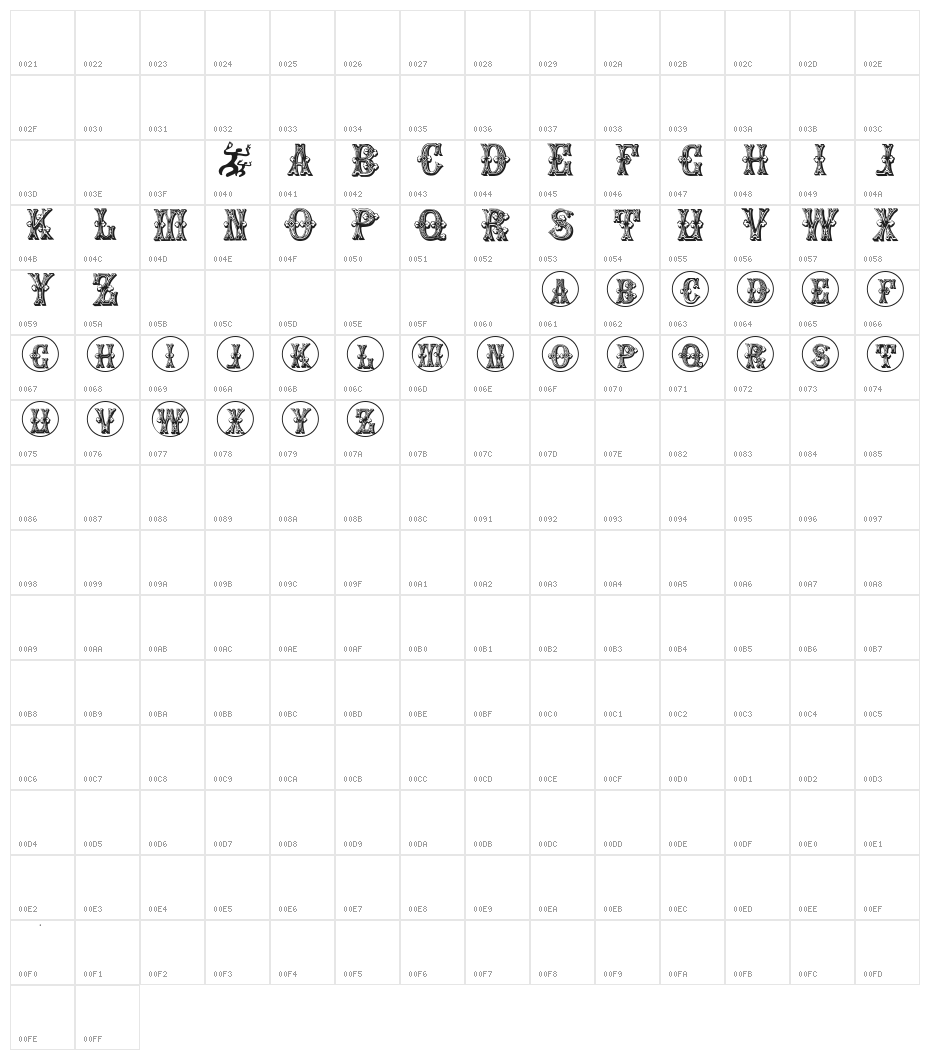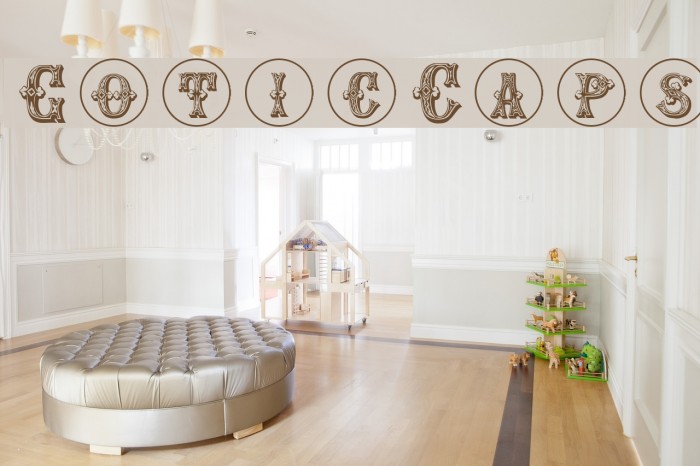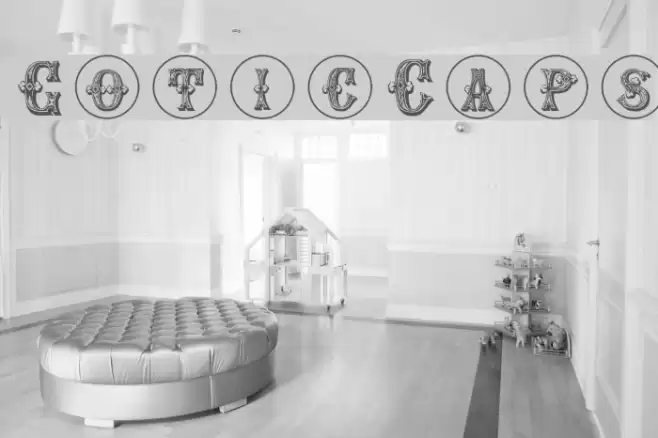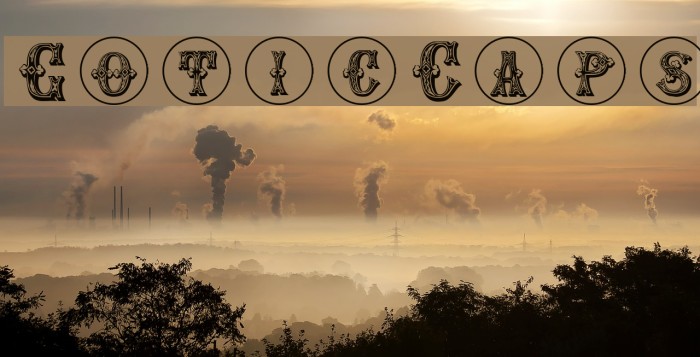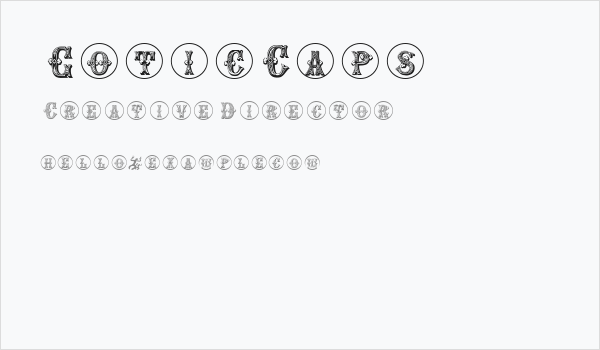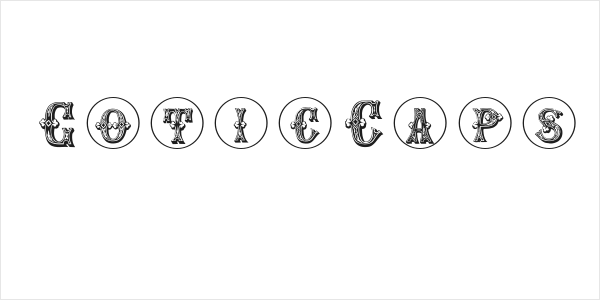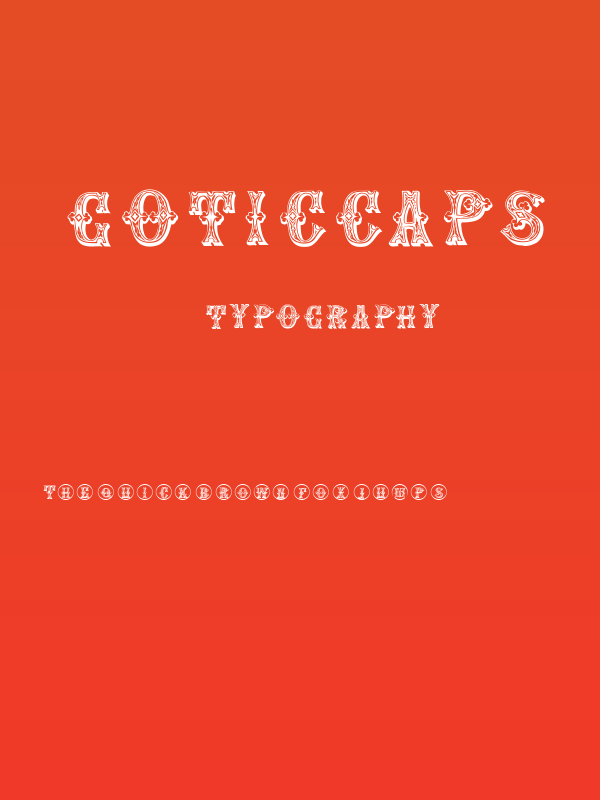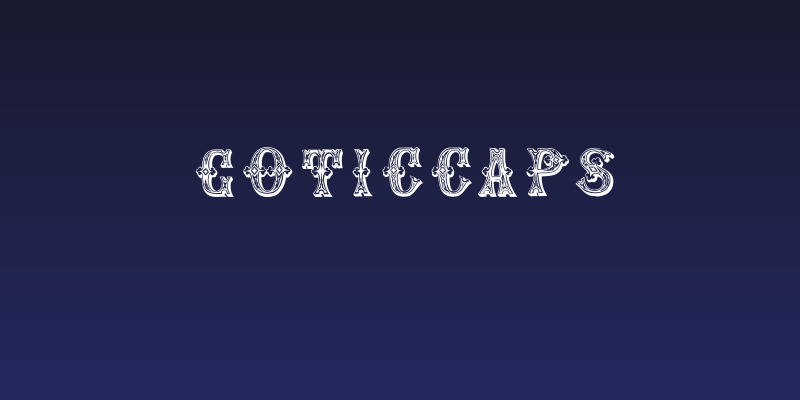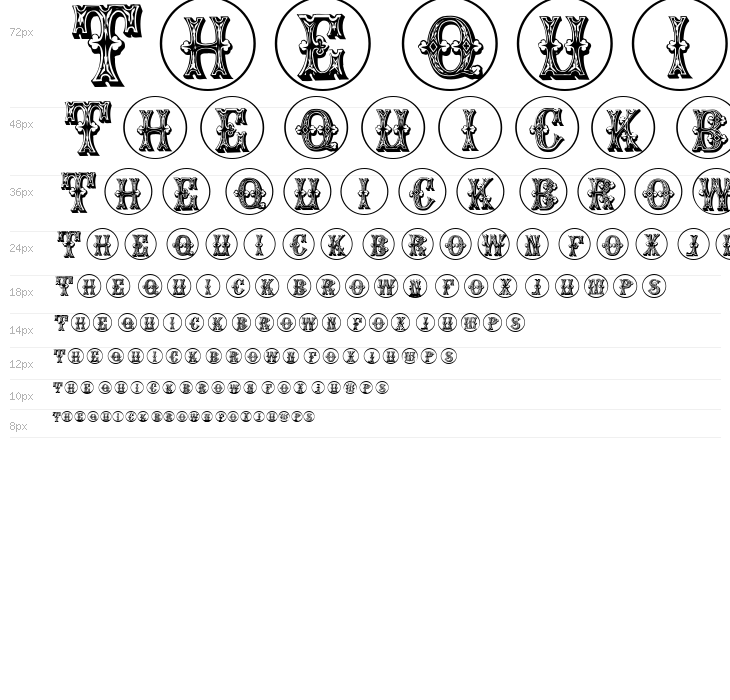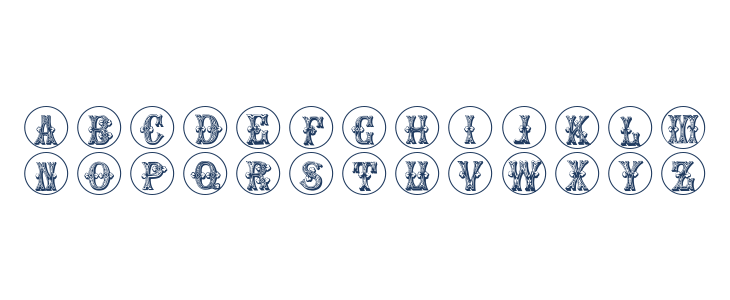
GoticCaps Font
GoticCaps Description
This font showcases an intricate and ornate design, reminiscent of Gothic architecture. Each letter is adorned with elaborate details, giving it a highly decorative and artistic appearance. The characters are bold and striking, with a strong emphasis on vertical lines and pointed arches, typical of Gothic style. The font is presented in uppercase letters, each encased in a circular frame, adding to its unique and eye-catching aesthetic. The overall look is both historical and dramatic, making it suitable for projects that require a touch of elegance and sophistication.
| Overall Style | Vintage, Decorative |
| Proposed Projects | Ideal for use in vintage-themed designs, wedding invitations, historical event posters, or any project requiring a dramatic and elegant typeface. |